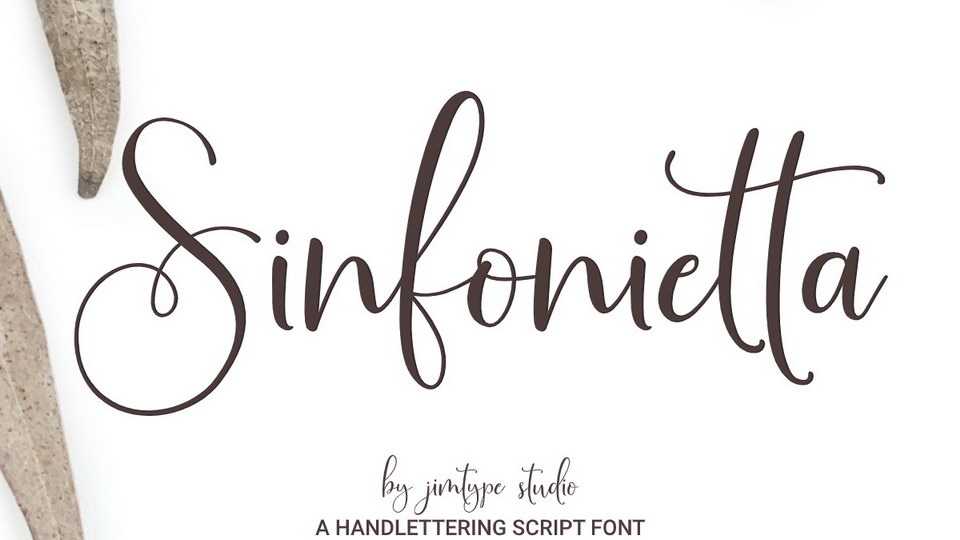
Download Sinfonietta font, a sweet, simple, and beautiful handwritten script. Sinfonietta is perect to create gorgeous wedding invitations, beautiful stationary art, eye-catching social media posts, and much more!